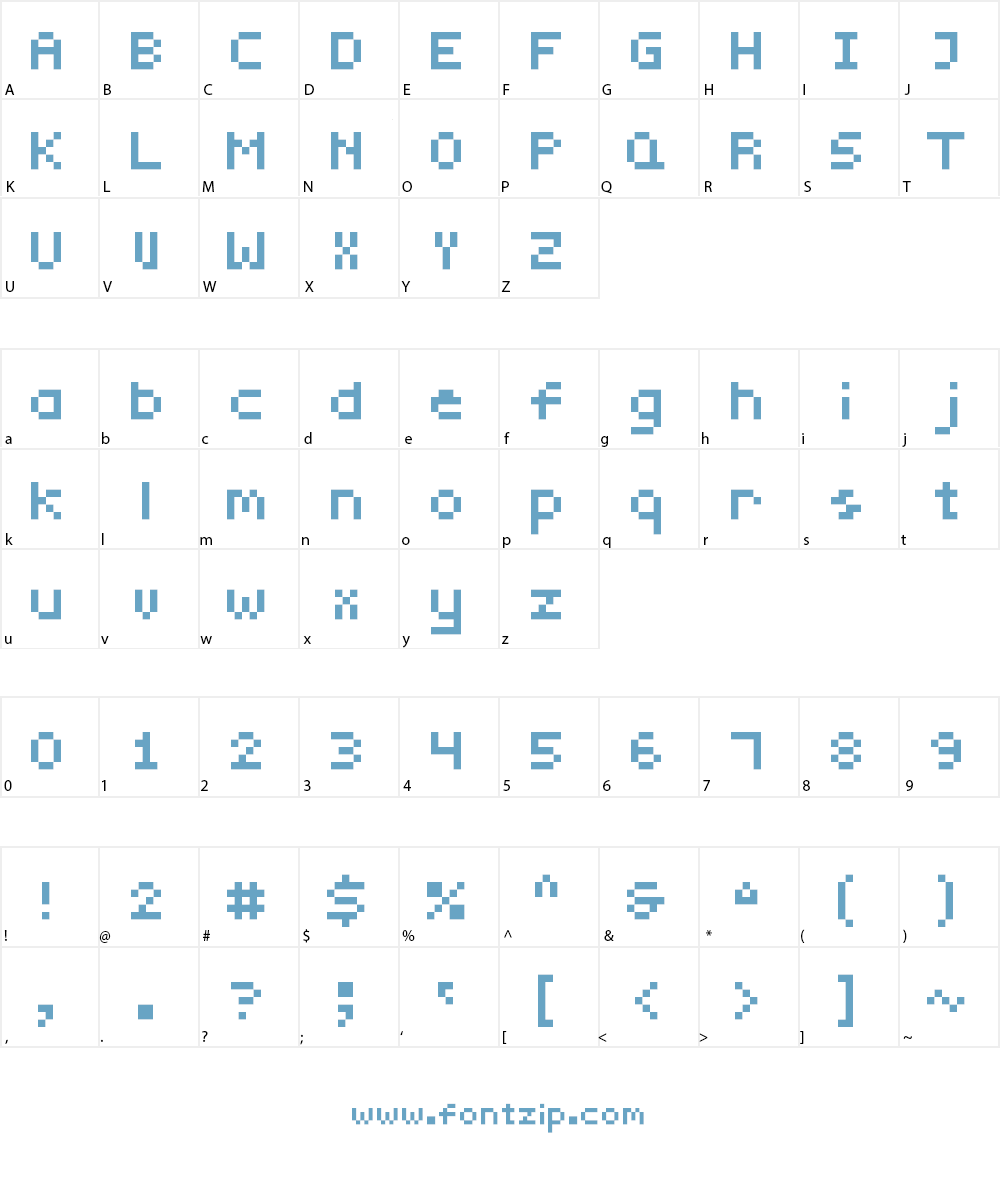
Based on my earliest stable font design (c. 2000, maybe 1999) I used to hand draw this in Paint whenever I needed to label something. I hadn't drawn it in years so I was surprised I still knew how! Now it's been immortalised in an actual TTF!